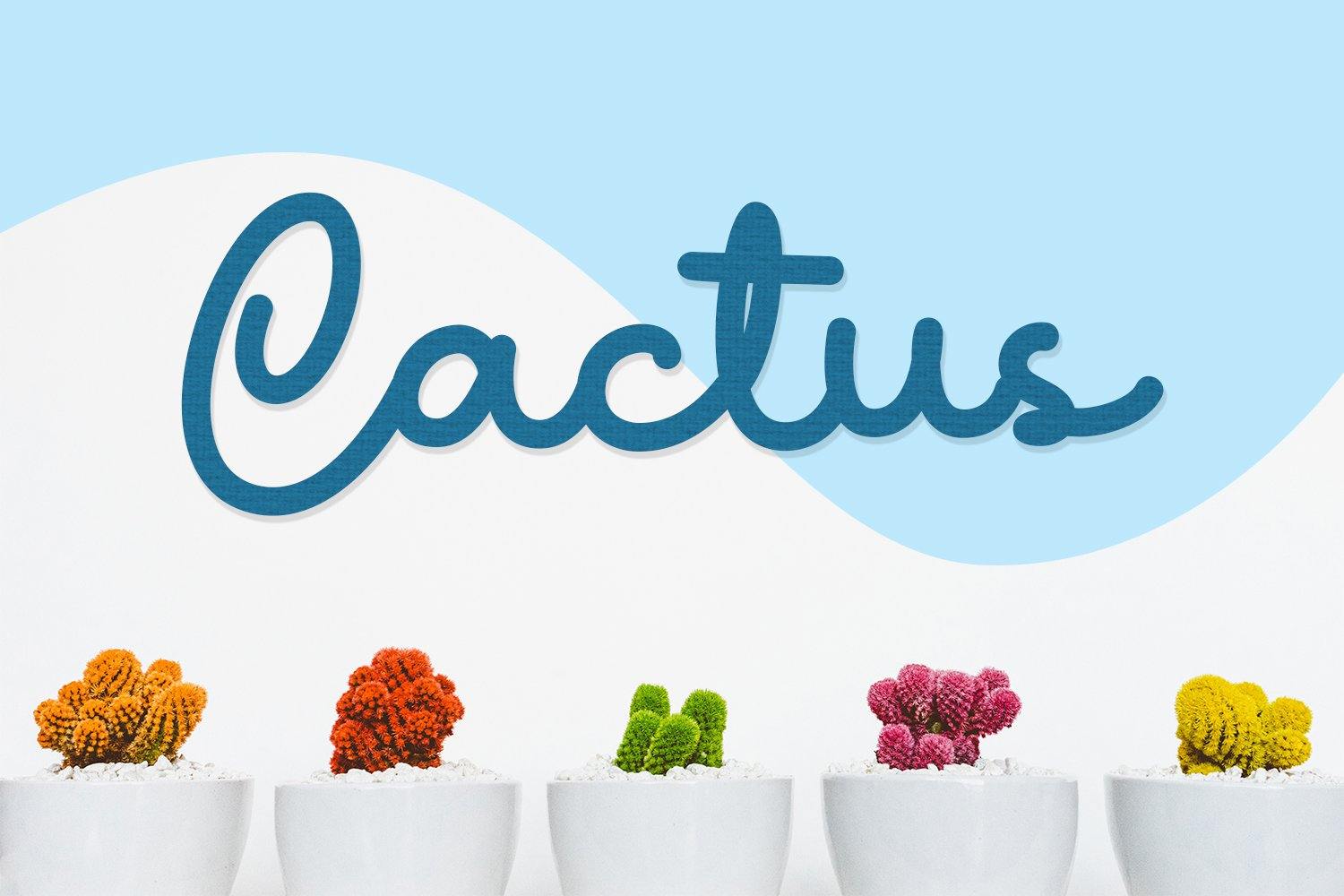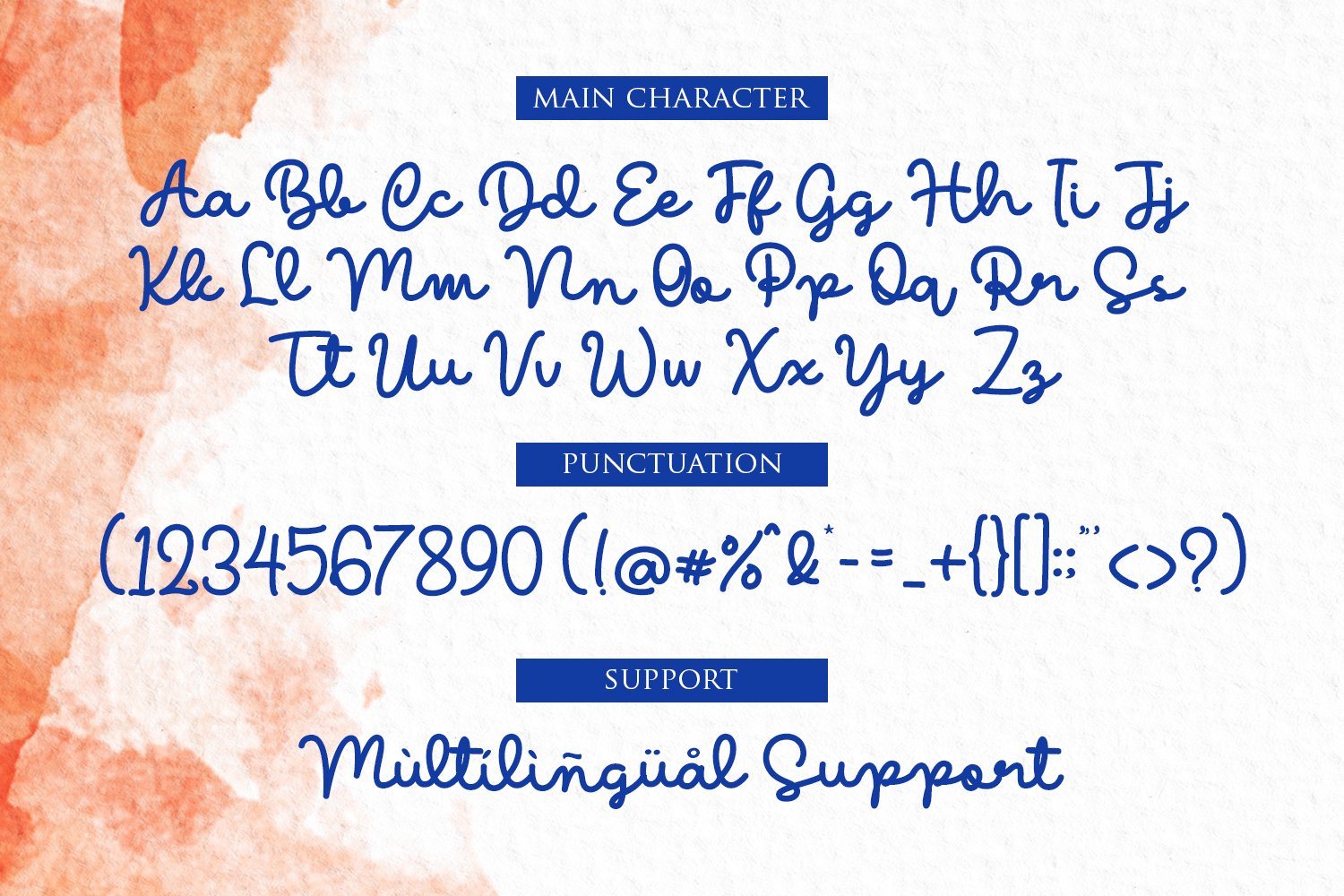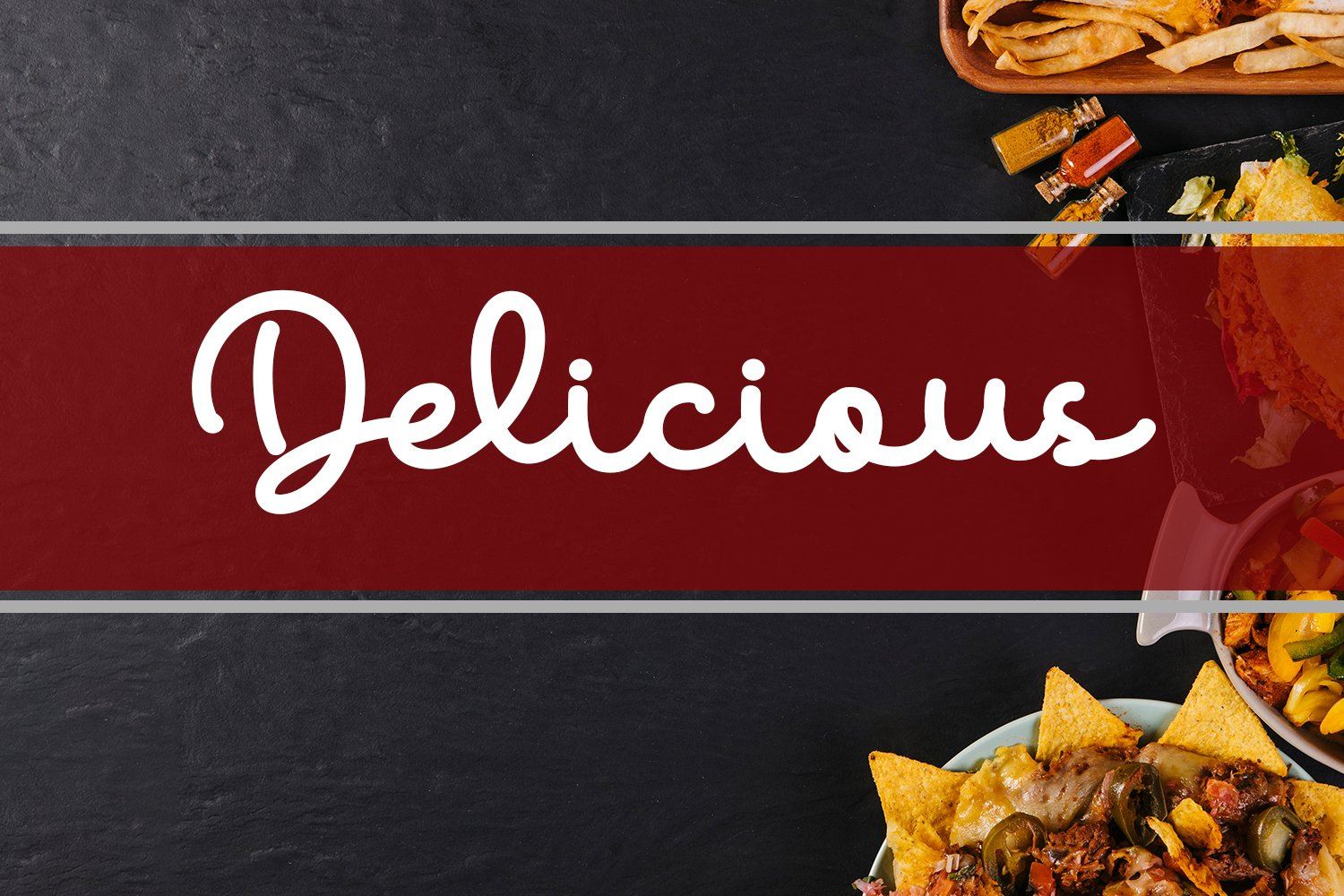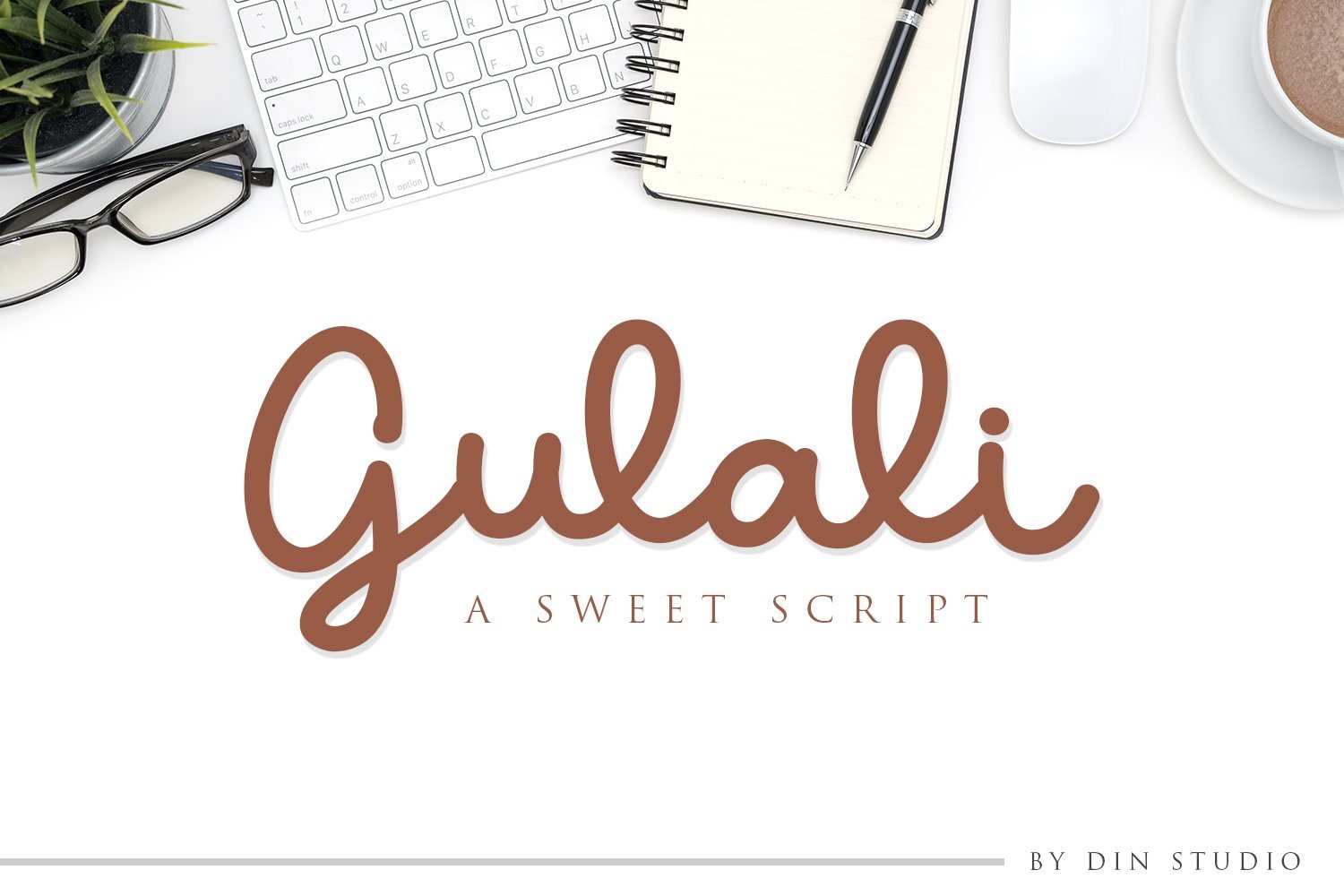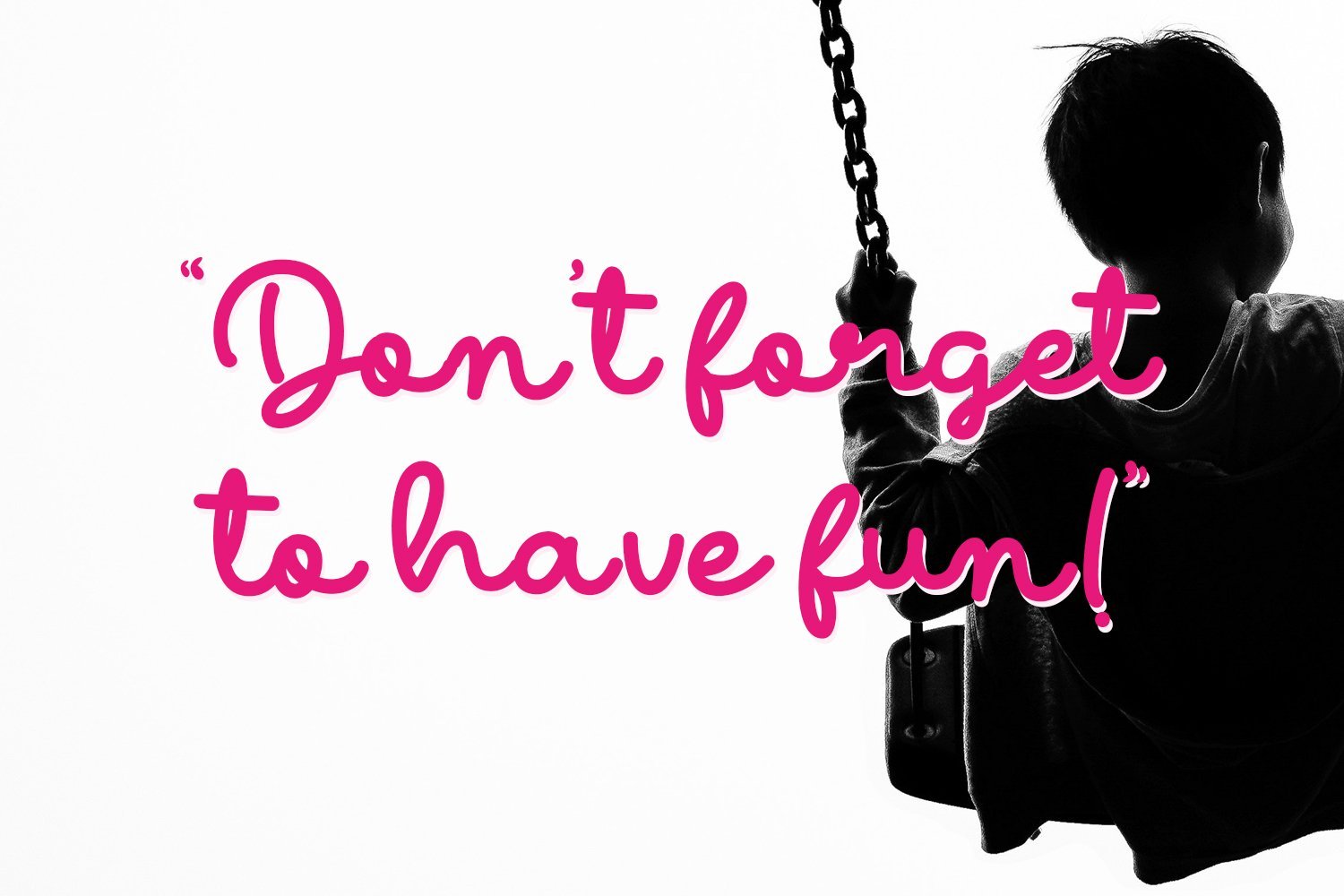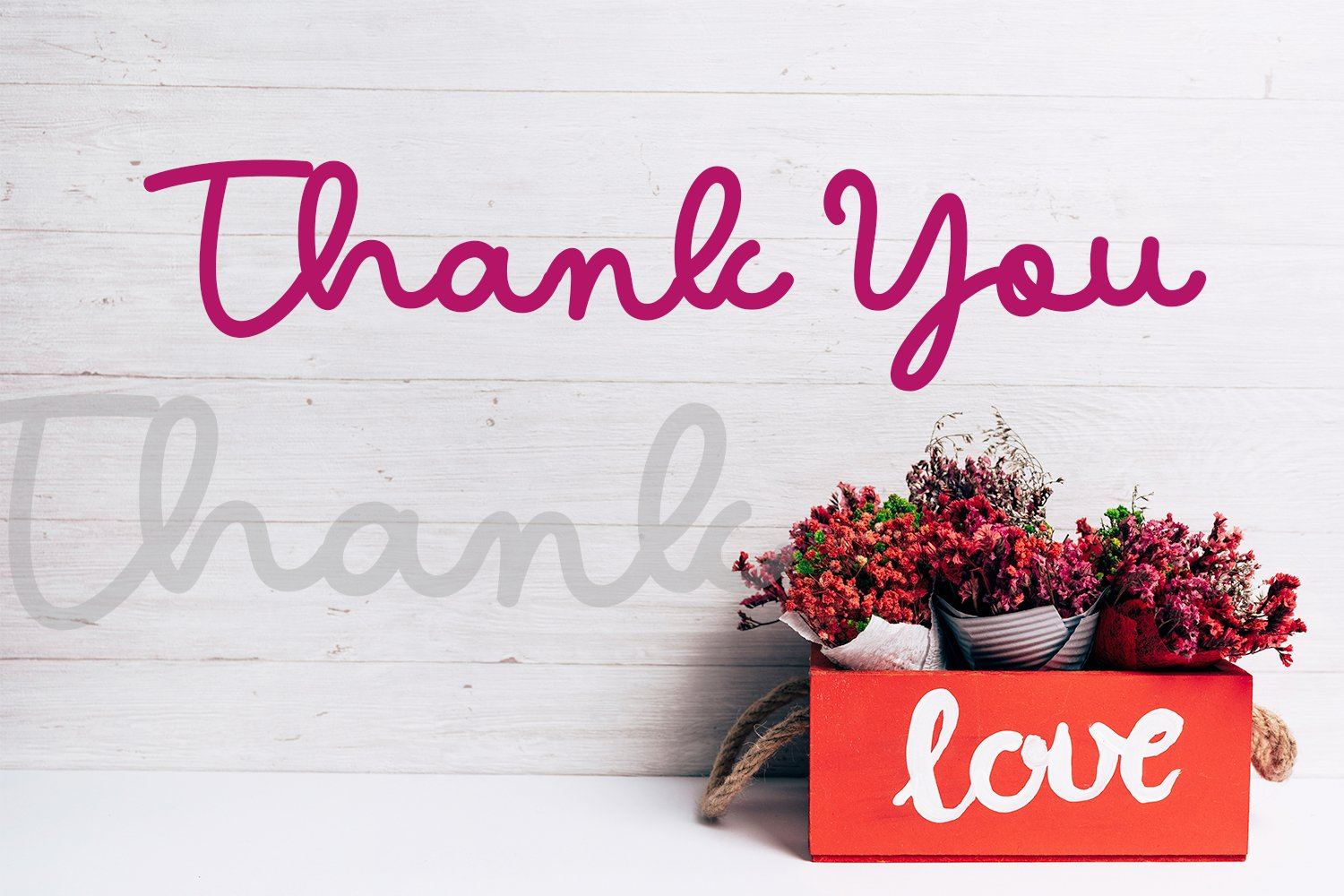
Gulali – A Sweet Script
About Gulali – A Sweet Script
Need a sweet and adorable font for your project design? Gulali Script is the right answer! Gulali Script is suitable for many projects design especially for a branding project, wedding, and lettering. Includes: Gulali Script (OTF/TTF/WOFF) Multilingual Support Easy to Use Thanks for visit my work and happy design! Donis M